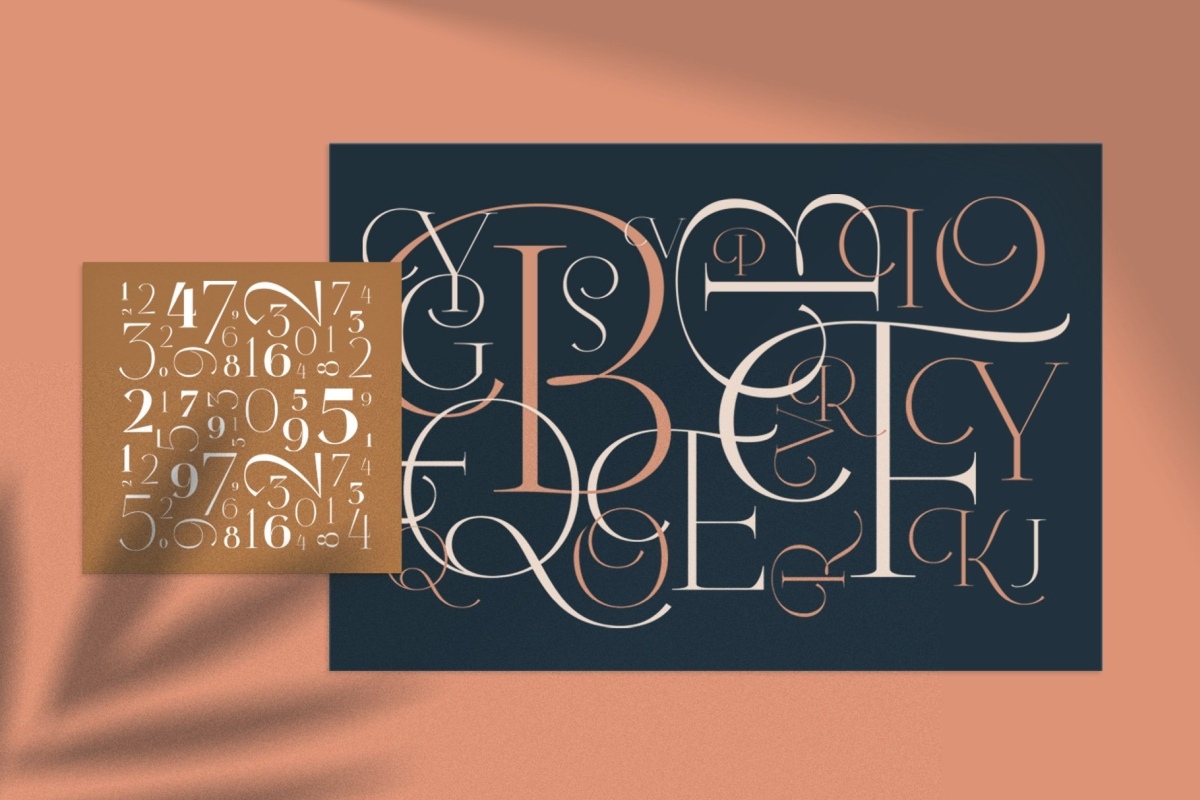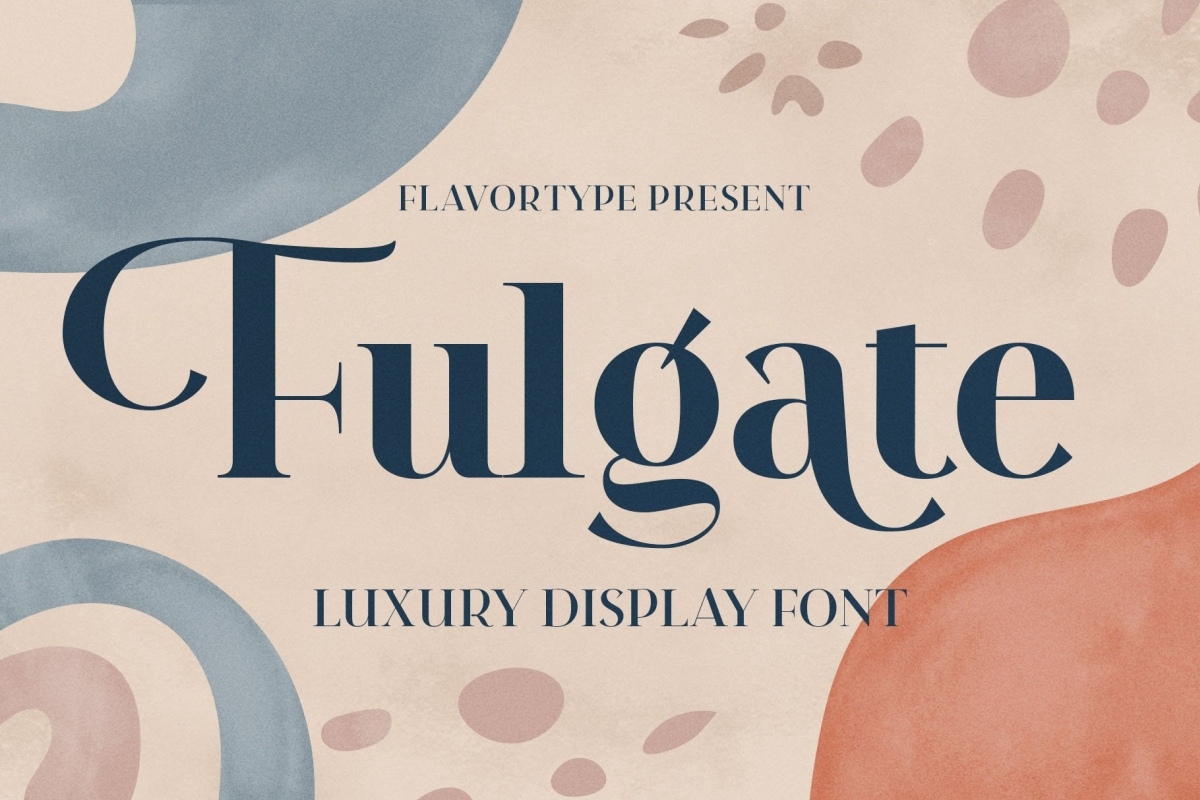
Fulgate Font
This contemporary typeface is perfect for modern tech branding, architectural firms, corporate presentations, sleek product packaging, innovative startup logos, minimalist websites, professional signage systems, and cutting-edge marketing campaigns. Fulgate Font excels in applications where clean sophistication and forward-thinking design aesthetics are paramount to brand success.
What makes Fulgate Font so exciting is its perfect fusion of geometric precision and contemporary elegance. The font features streamlined letterforms with subtle architectural influences that create a sense of structural integrity and modern professionalism. Each character has been meticulously designed to ensure optimal clarity across all platforms while maintaining distinctive personality traits that set it apart from generic typefaces. The font's innovative approach to letterform construction reflects current design trends while remaining timeless enough for long-term brand applications, making it ideal for companies positioning themselves as industry leaders.
The Fulgate Font includes multiple weight options: Light, Regular, Medium, Semi-Bold, and Bold variations. This comprehensive range provides designers with complete flexibility to create sophisticated typographic hierarchies and maintain visual consistency across diverse brand applications. Each weight preserves the font's core characteristics of modernity and precision while offering distinct personality levels for different communication needs and design contexts.
Whether you're crafting innovative brand identities, developing professional digital experiences, or designing contemporary marketing materials, Fulgate Font Free Download delivers the modern aesthetic that today's progressive brands require. Its clean architecture makes it particularly suitable for technology companies, design studios, consulting firms, and forward-thinking businesses. The font's excellent versatility ensures consistent performance across web, mobile, and print applications, while its professional appearance builds confidence and credibility with sophisticated audiences.
This cutting-edge typeface represents the future of corporate typography for brands embracing innovation and contemporary design excellence.